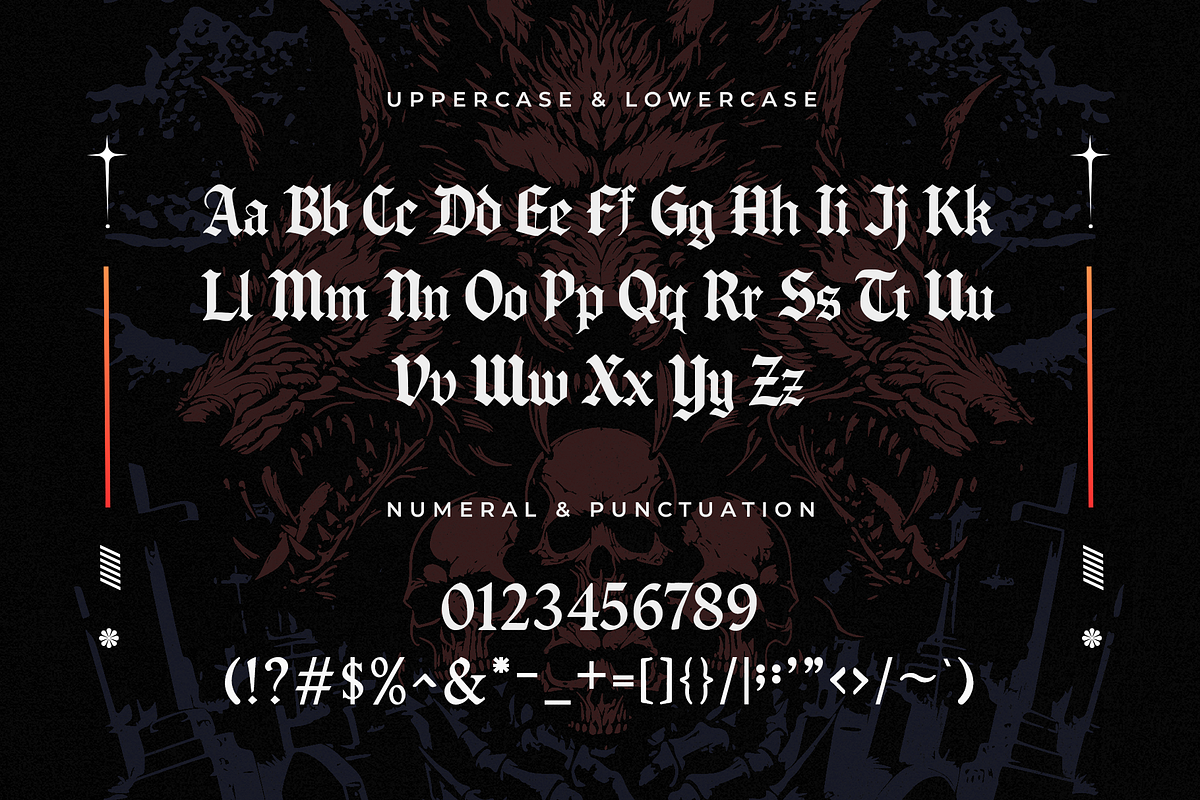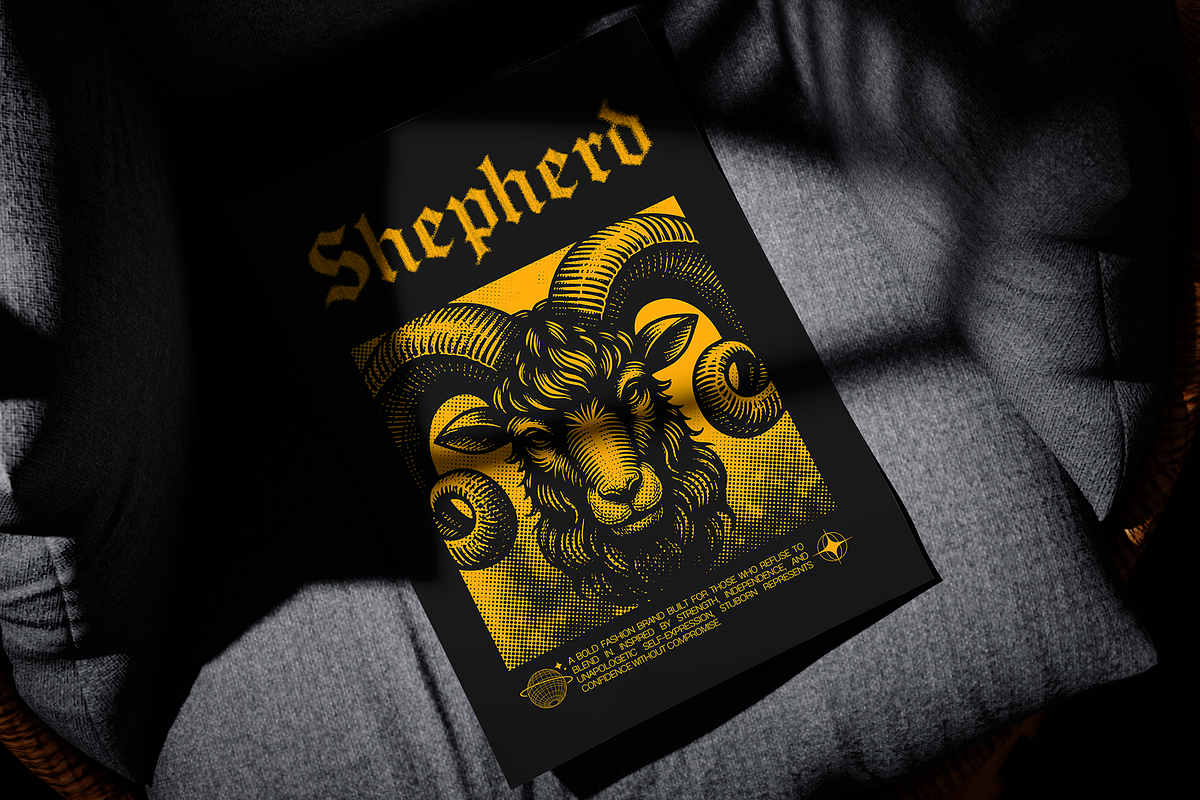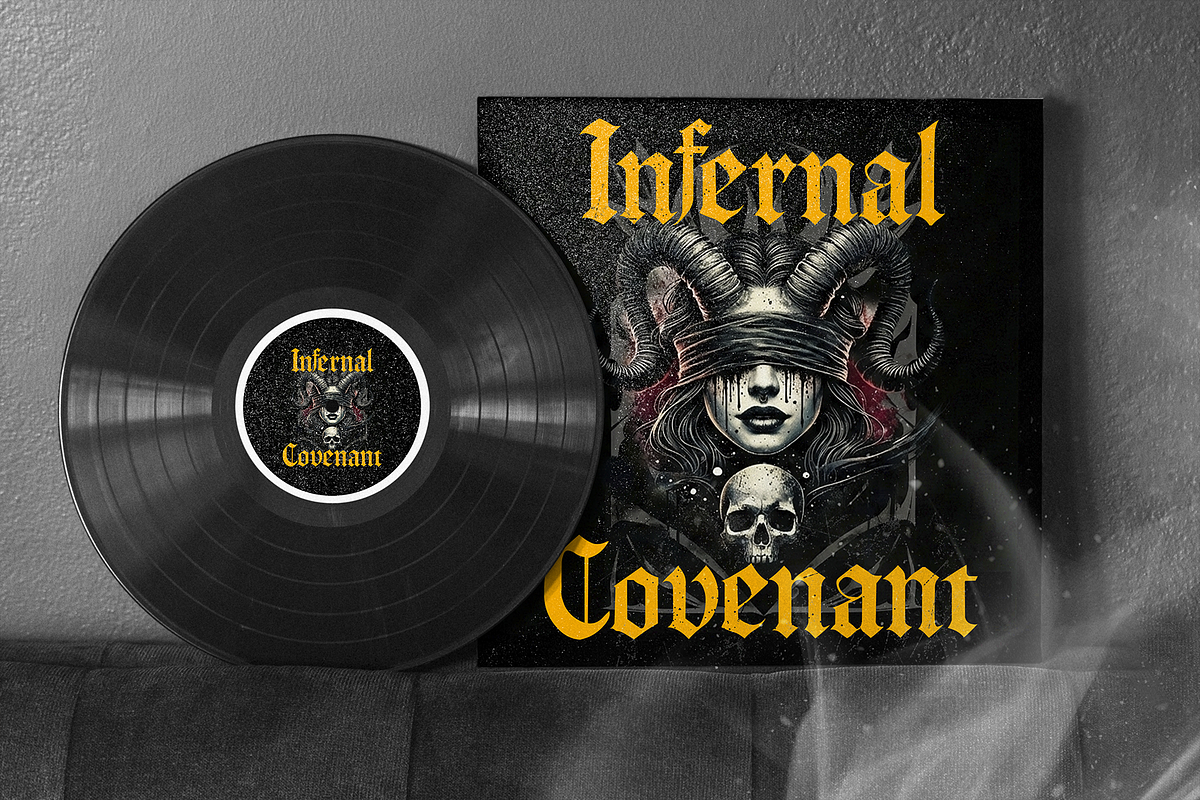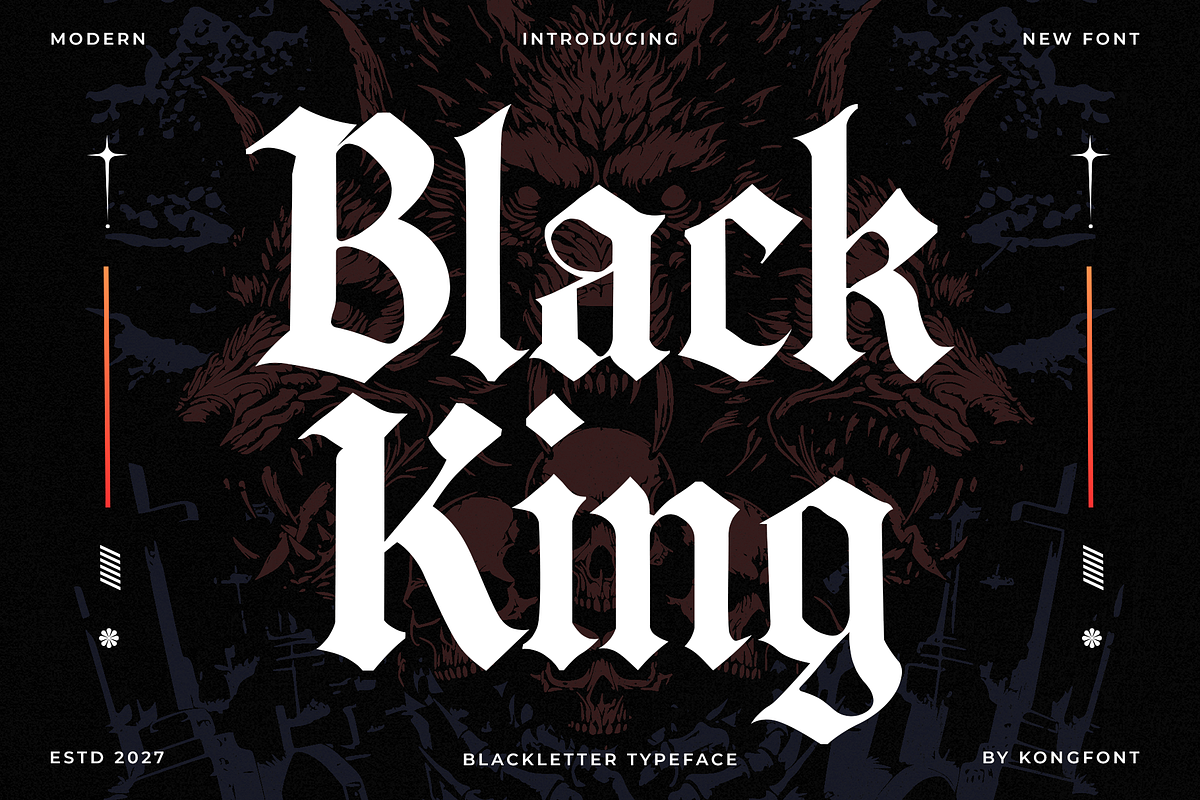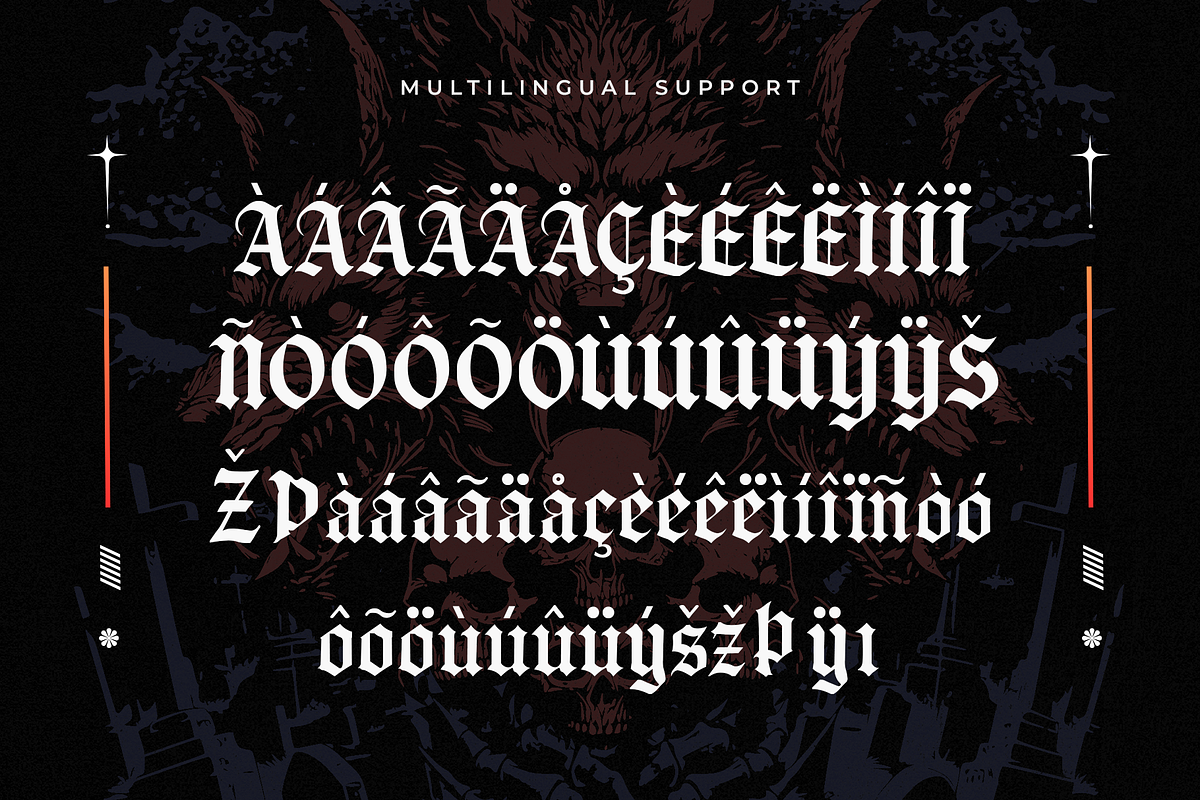
Black King – Modern Blackletter Type
Black King – Modern Blackletter Typeface
Black King is a modern blackletter typeface that combines the powerful essence of traditional gothic lettering with a refined contemporary structure. Inspired by classic Old English style, this font delivers bold strokes, dramatic details, and a commanding presence that instantly elevates any design.
Carefully crafted to maintain readability while preserving its authentic blackletter character, this typeface includes uppercase and lowercase letters, numerals, punctuation, and multilingual support for versatile use across print and digital media.